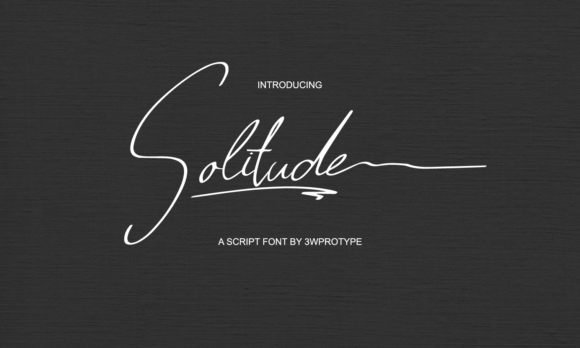
Embrace the allure of Solitude Regular Script Font and immerse yourself in a world of elegance and sophistication. This exquisite script font captivates with its delicate strokes, adding a touch of charm to any design. Crafted by the skilled hands of 3wprotype, Solitude's natural handwritten style brings a personal touch to your creative projects.
Unleash your creativity and make a lasting impression with Solitude. Let your designs radiate grace and charm, whether you're crafting logos, branding materials, or stunning invitations. Its impeccable style seamlessly blends into a variety of contexts, from formal invitations to whimsical greeting cards.
Solitude's versatility extends to a wide range of projects. Its precise strokes and flowing lines create a harmonious balance, making it a perfect choice for book covers, magazine layouts, and packaging design. Its versatility shines through in the world of fashion, breathing life into clothing lines, makeup labels, and stationery. With Solitude Regular Script Font, your designs will exude a touch of class and refinement.
Experience the transformative power of Solitude and watch your designs come alive. Its natural handwritten style evokes a sense of authenticity and intimacy, leaving a lasting impression on your audience. Indulge in the beauty of Solitude Regular Script Font and elevate your creative projects to new heights of elegance and grace.